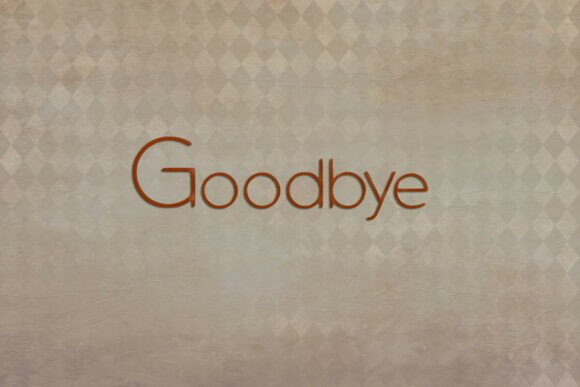
Introduction to Good Bye Font
The Goodbye Thin Print Font is a versatile typeface that’s simply perfect for adding a touch of charm to your T-shirts, stickers, and branding initiatives.
It beautifully graces the pages of magazines and breathes life into SVG files and heartwarming greeting cards If you’re into Cricut projects, this font makes for a delightful addition.